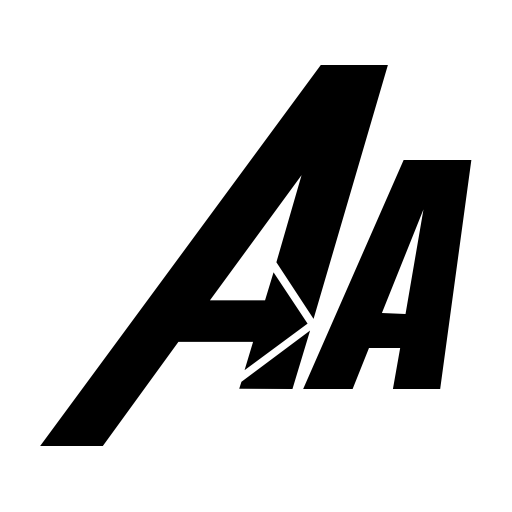
Authentic Force is a bold, geometric display font characterized by its blocky, modular letterforms with high contrast between thick and thin shapes. Its futuristic, almost stencil-like style gives it a strong, dynamic personality that works well for eye-catching headlines, logos, and modern branding projects seeking a unique, tech-savvy vibe. This font stands out in creative and digital contexts where a striking, innovative look is desired.
Authentic Force Font
About Authentic Force Font
| Font family | Authentic Force Font |